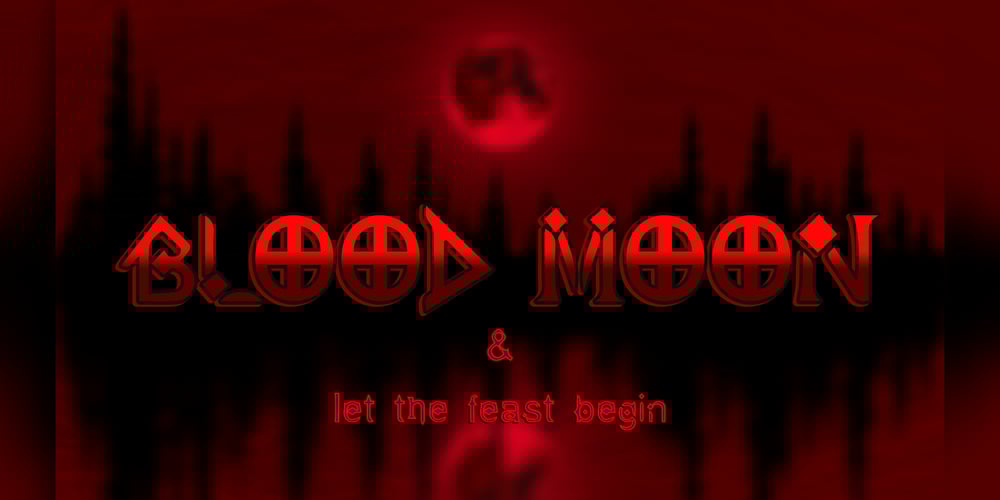
Gothic Ritual Font Family was designed by Dimitris Georgantis and published by Geo Dim Creations. Gothic Ritual contains 1 styles and family package options. Gothic Ritual is inspired by well known franchise Diablo that made its initial release back in 1996.